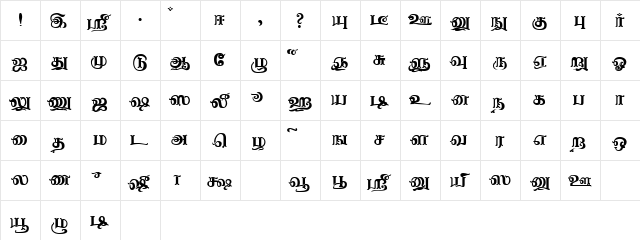
Nagananthini Regular
Design Context for Nagananthini Typeface
Nagananthini is a composed and adaptable typeface that performs quietly and consistently across a wide range of design contexts. Its slender proportions lend an understated elegance to any composition.